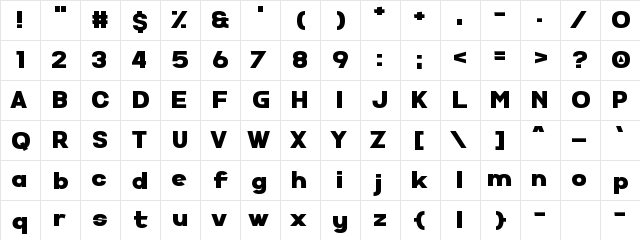
Super Comic Regular
Design Context for Super Comic Typeface
Super Comic has an approachable, lighthearted character — its loose, expressive forms are well-suited to children's content, casual branding, and fun-first design.
Well-suited to food and beverage brands with personality, educational materials, and fun-forward identities.
Font Pairing: Pairs well with a rounded or humanist sans for body copy, maintaining the friendly tone without relying on Super Comic to carry extended reading.
Pro Tip: Use Super Comic at larger display sizes where its expressive character can land. Pair with a clean, simple sans for body copy to maintain readability.